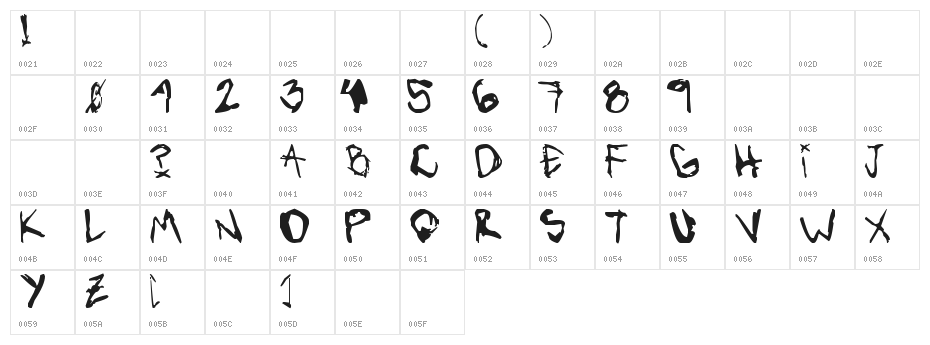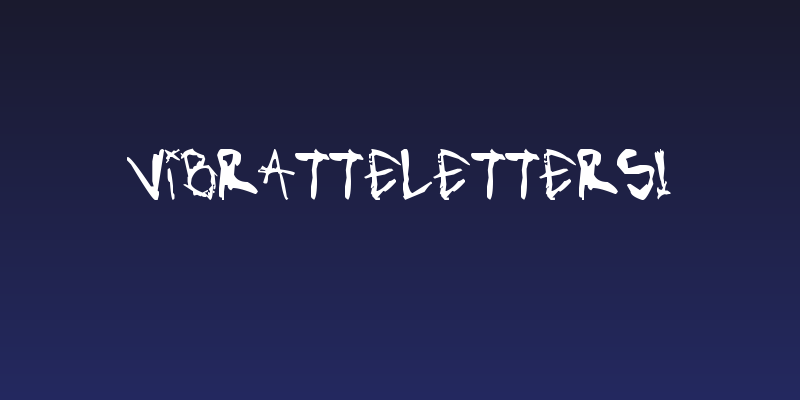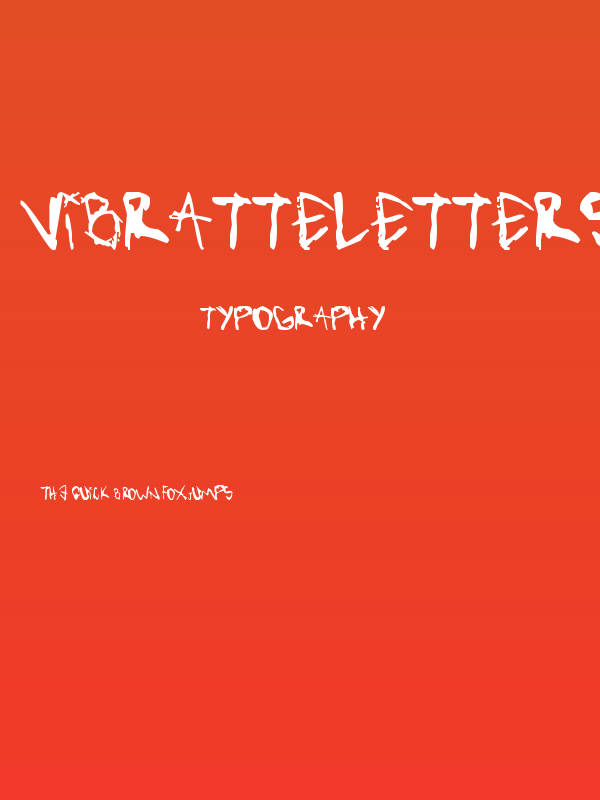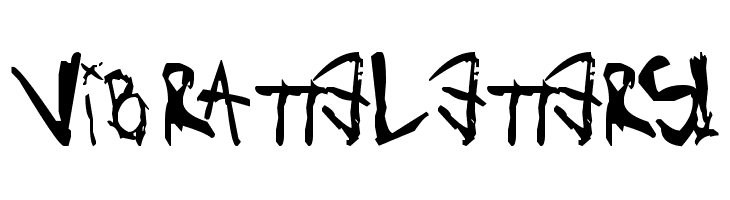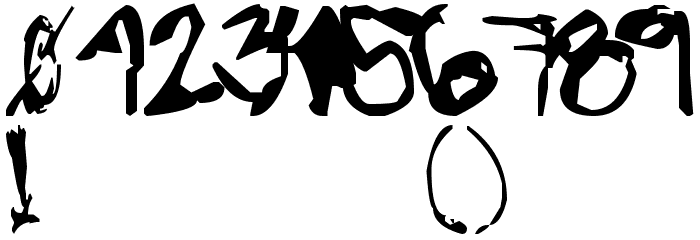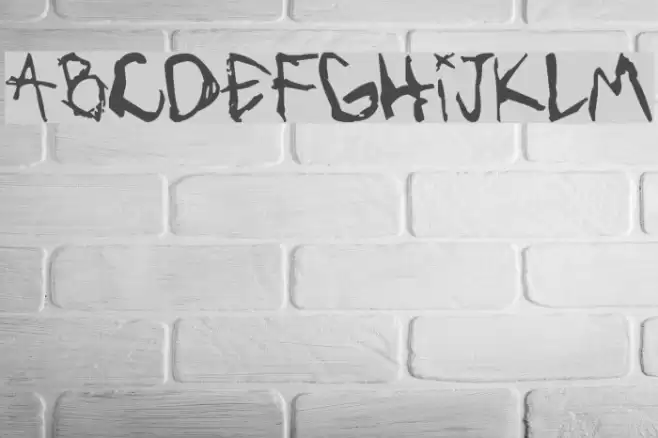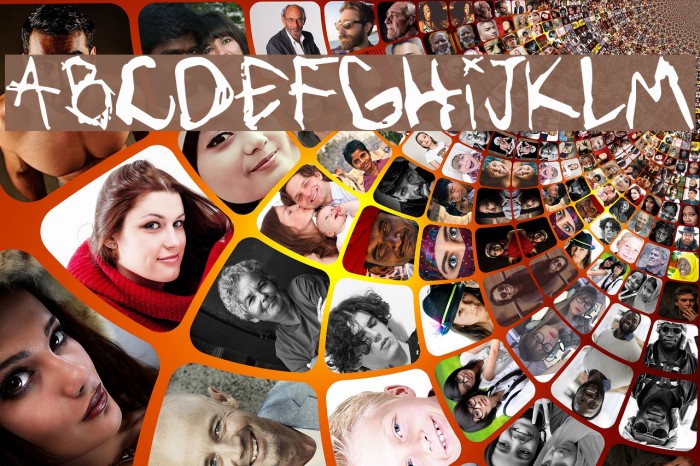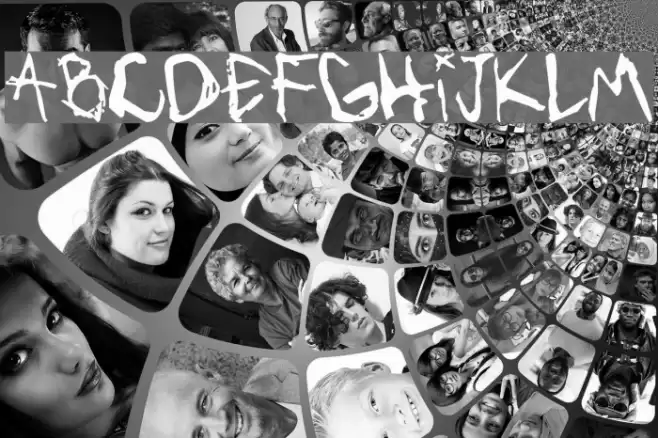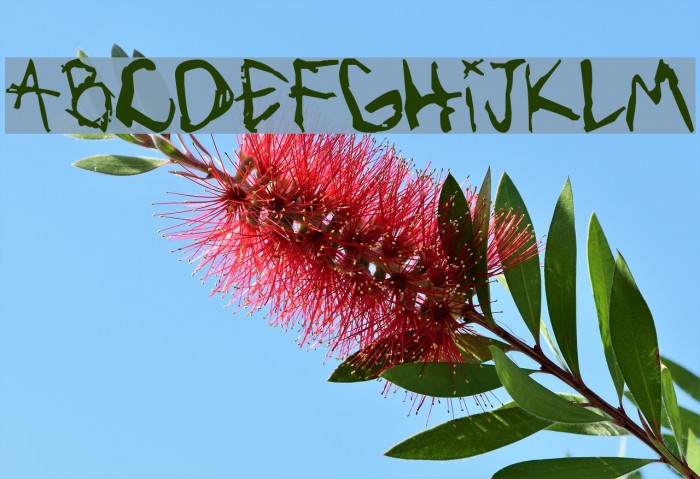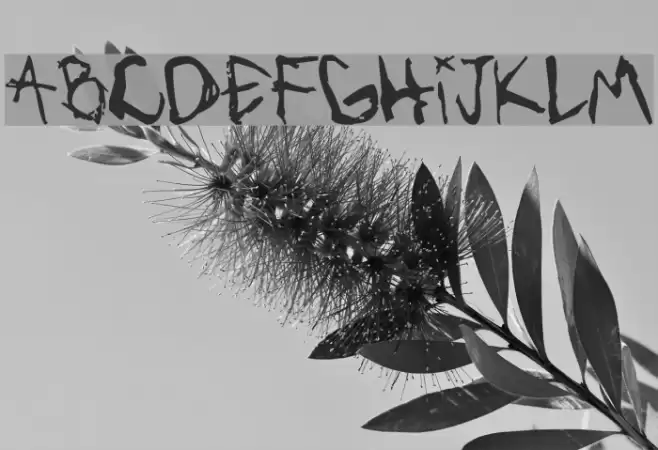
VibratteLetters! Font
VibratteLetters! Description
This font features a highly expressive and chaotic design, characterized by irregular strokes and a hand-drawn appearance. Each character appears to be crafted with a sense of urgency and spontaneity, giving it a raw and energetic feel. The letters are unevenly weighted, with some parts appearing thicker and others thinner, adding to the dynamic and unpredictable nature of the font. The overall style is reminiscent of graffiti or street art, with a rebellious and edgy vibe. This font is not suited for formal or traditional uses but excels in creative and artistic projects where a bold statement is needed.
| Overall Style | Modern, Edgy |
| Proposed Projects | Ideal for album covers, street art designs, edgy posters, and creative branding projects. |